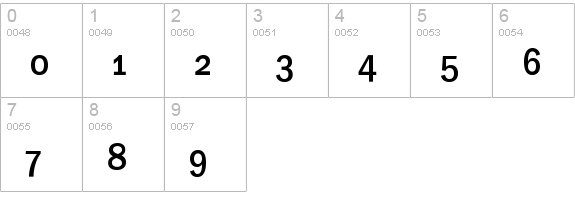
FranklinGothicEF-MedConSC Font Details
FranklinGothicEF-MedConSC is a versatile and modern font that exudes sophistication and elegance. Its medium condensed style makes it perfect for a wide range of design projects, from branding to editorial layouts. The clean lines and balanced proportions of this font ensure readability and impact, making it a popular choice among designers and creatives. What sets FranklinGothicEF-MedConSC apart is that it is available for free download at FontsMarket.com, allowing anyone to access this high-quality font without any cost. Whether you are working on a professional project or a personal endeavor, FranklinGothicEF-MedConSC offers a polished and refined look that will elevate your design to the next level. Experience the versatility and beauty of this font today by downloading it for free at FontsMarket.com.